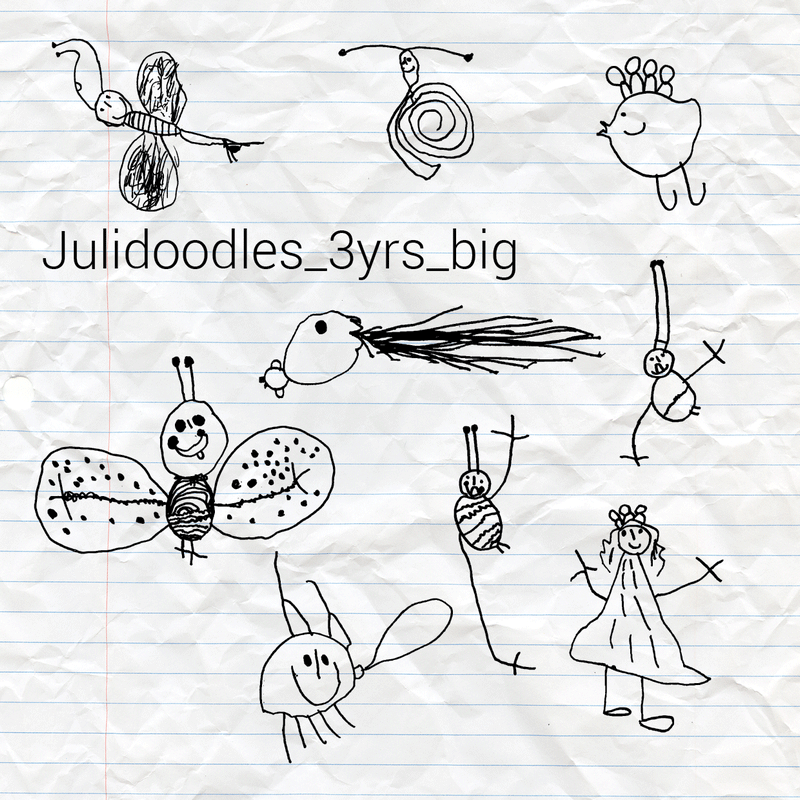
Preview and download Julidoodles 3yrs big Font. Created by Vaclav Krejci in Dingbats Kids styles with 100% Free license.
Doodles and drawings of my daughter Julie during the year of 2017 (when she was 3 years old). All donations would be used solely on getting her new markers and papers. Or candies. I�m still undecided. Lots of cats, ladybirds, fishes, unidentified animals and big smiles. Best to be used in a really big sizes. Use however and for whatever you want. No restrictions. |